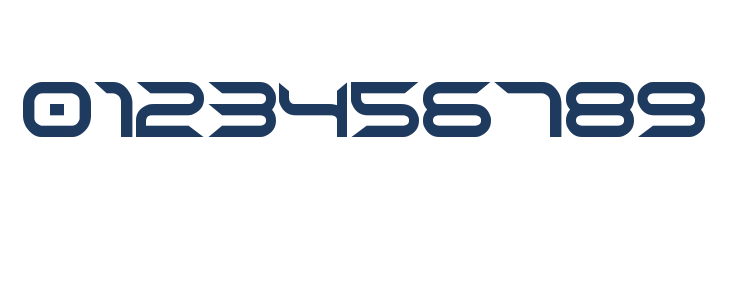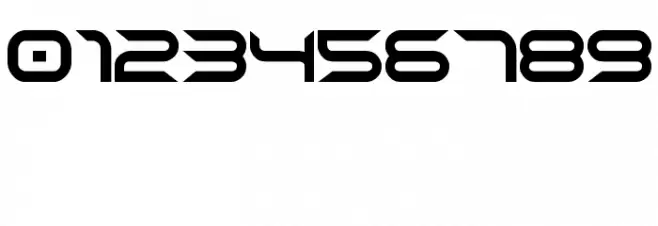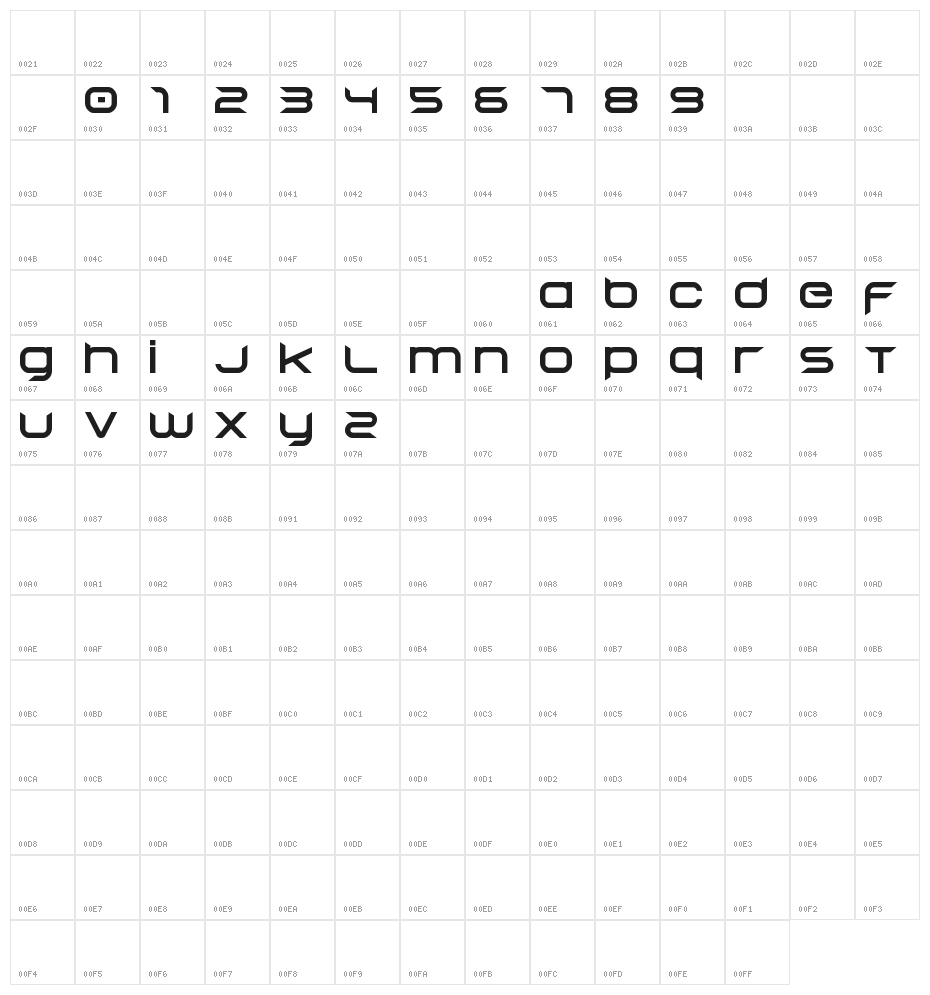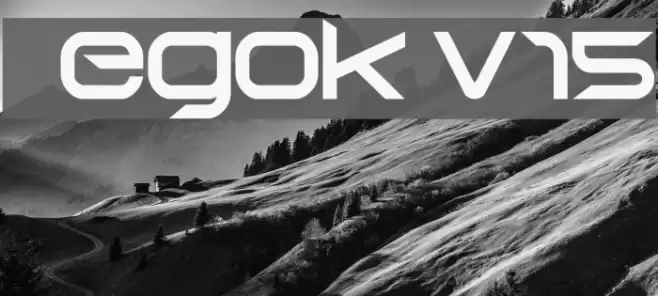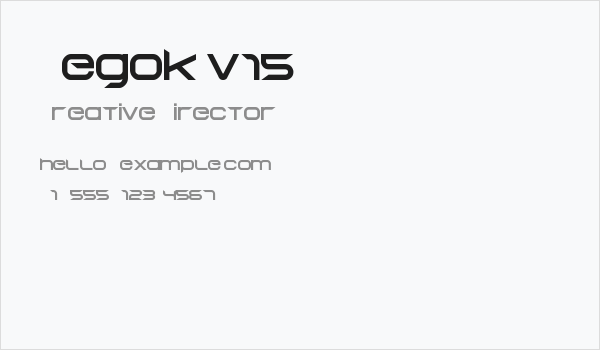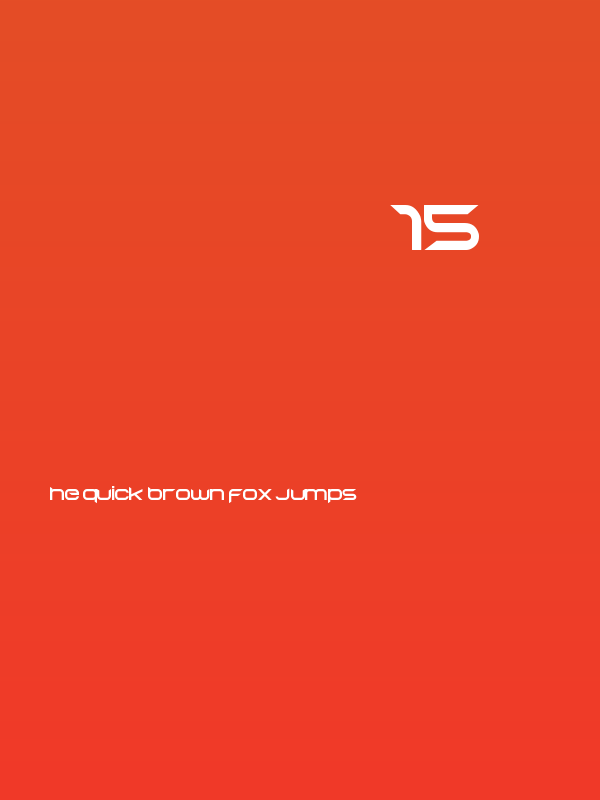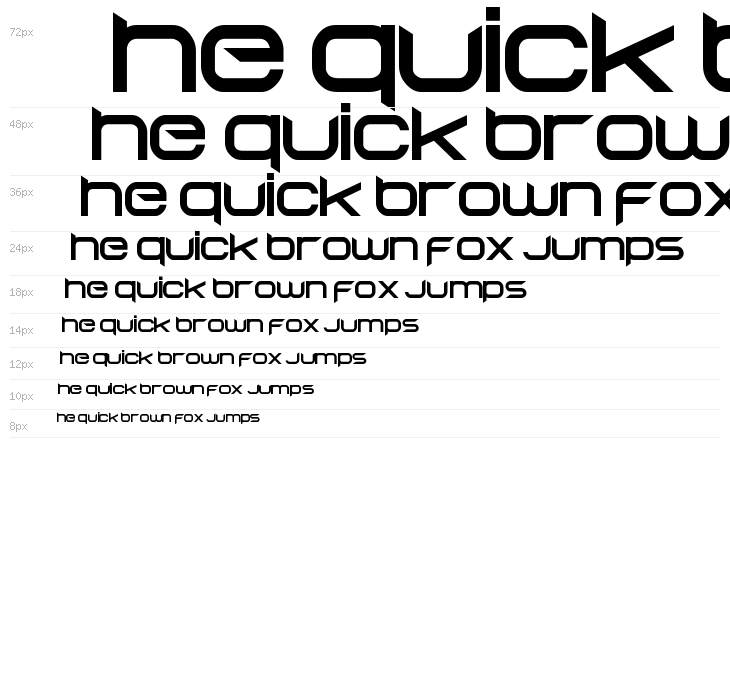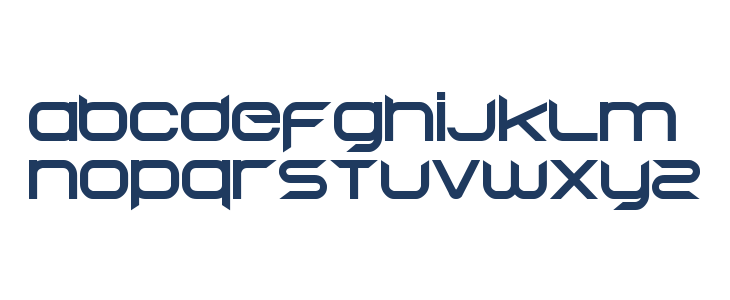
Begok v15 Font
Begok v15 Description
This font features a futuristic and geometric design, characterized by its sharp angles and sleek curves. The letters are crafted with a consistent stroke width, giving it a uniform appearance. The design incorporates unique cutouts and angles that add a dynamic and modern touch. The numerals and special characters follow the same design principles, ensuring a cohesive look across all elements. This font is ideal for projects that require a modern and edgy aesthetic.